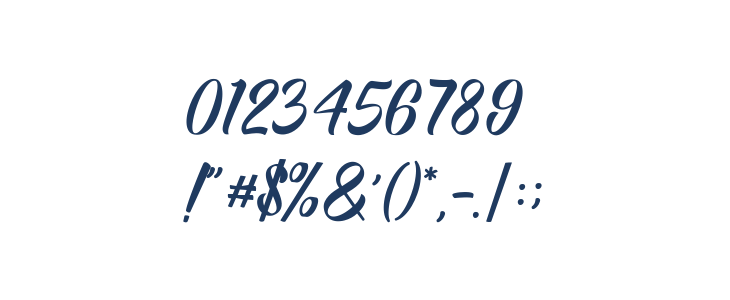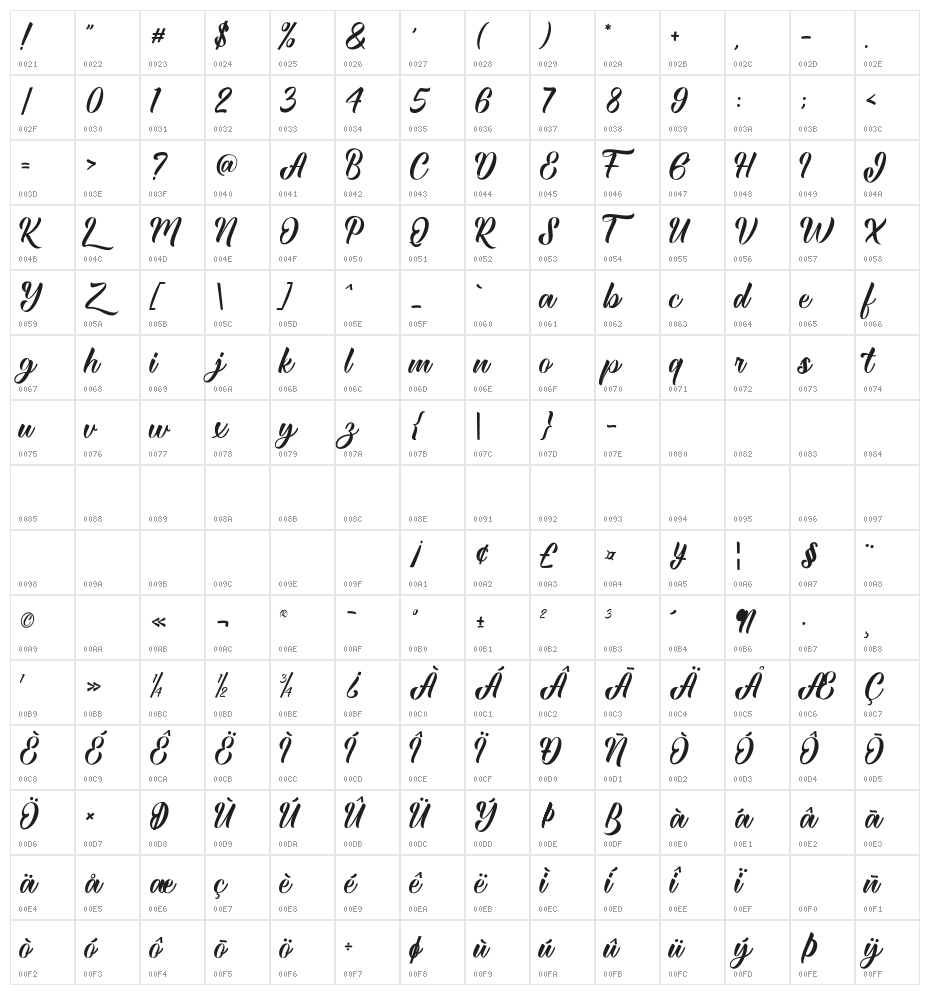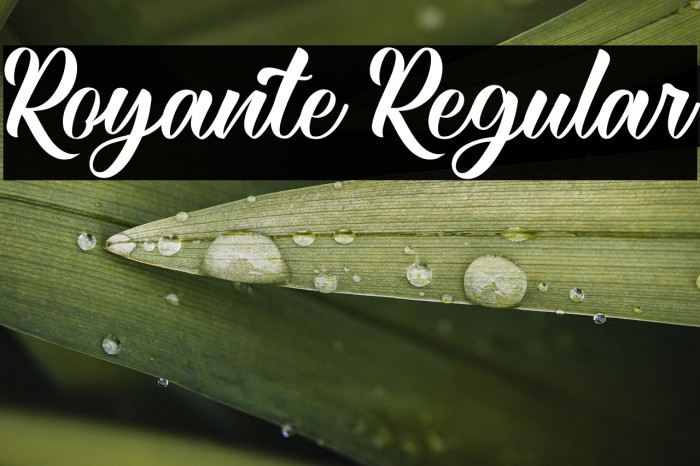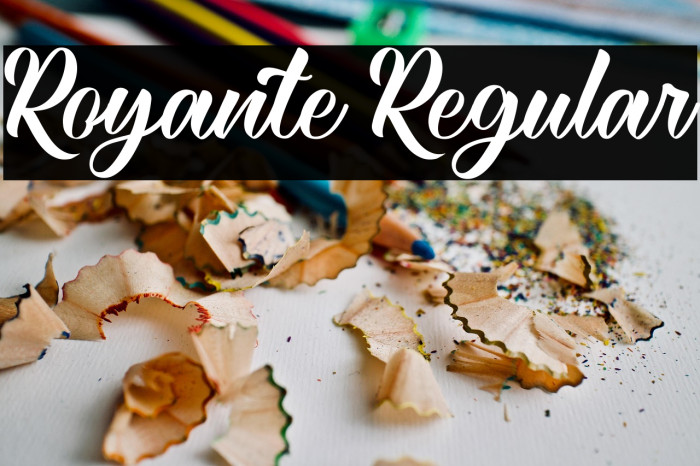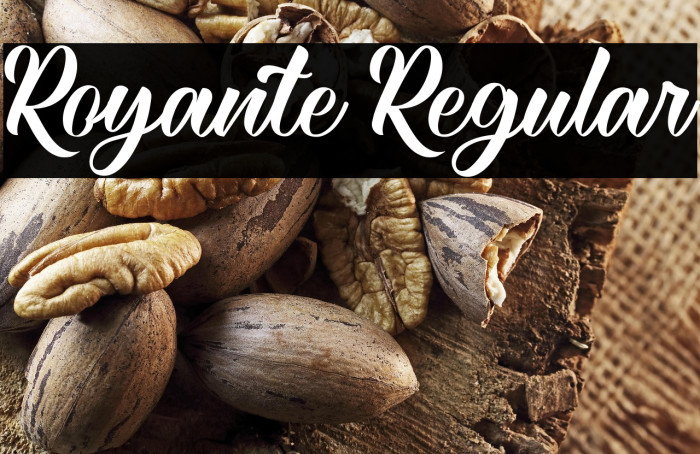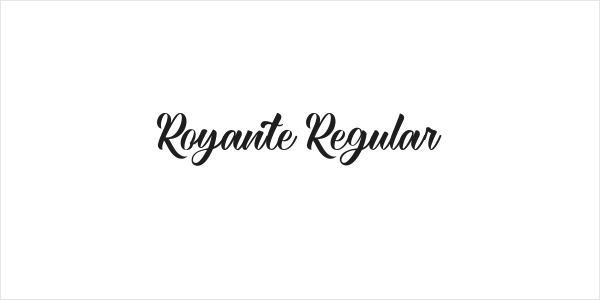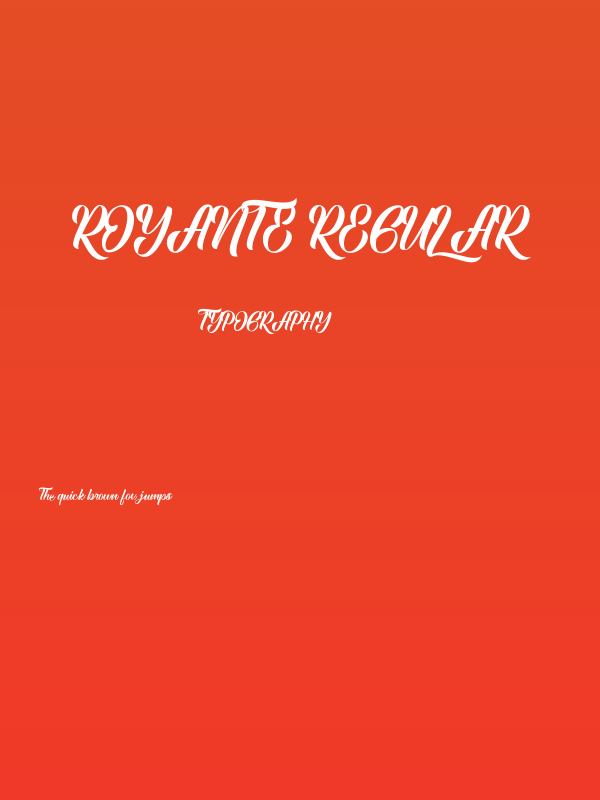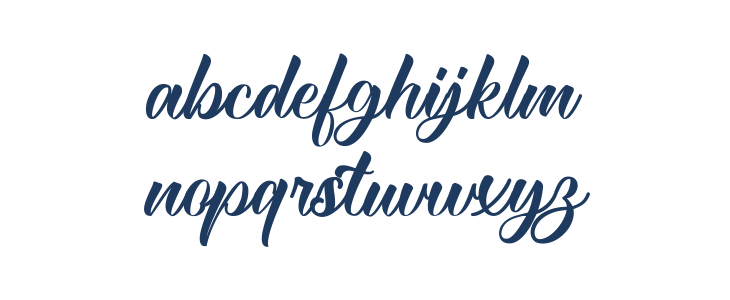
Royante Regular Font
Royante Regular Description
This font exudes a bold and elegant script style, characterized by its flowing, cursive letterforms. The uppercase letters are grand and sweeping, while the lowercase letters maintain a consistent fluidity, making it ideal for creating a sense of sophistication and grace. The numerals are equally stylish, maintaining the script's overall aesthetic. Special characters are designed to complement the letterforms, ensuring a cohesive look across all text. Its high contrast in stroke thickness adds to its dramatic flair, making it a standout choice for decorative purposes.
| Overall Style | Elegant, Decorative |
| Proposed Projects | Ideal for wedding invitations, luxury branding, elegant signage, and decorative headlines. |